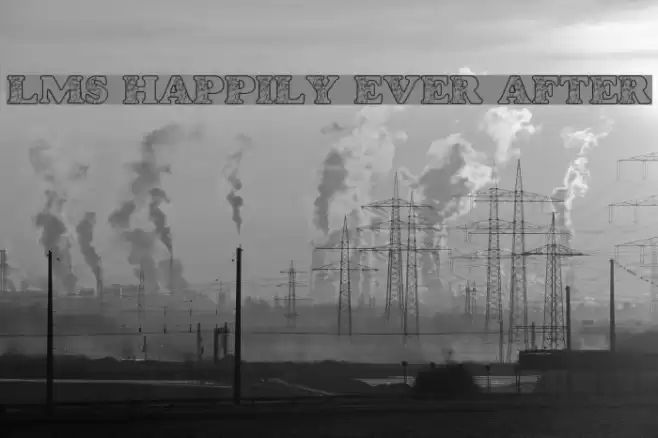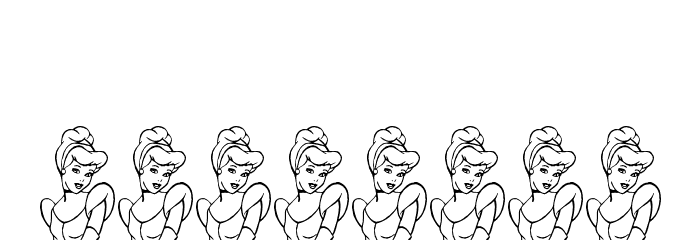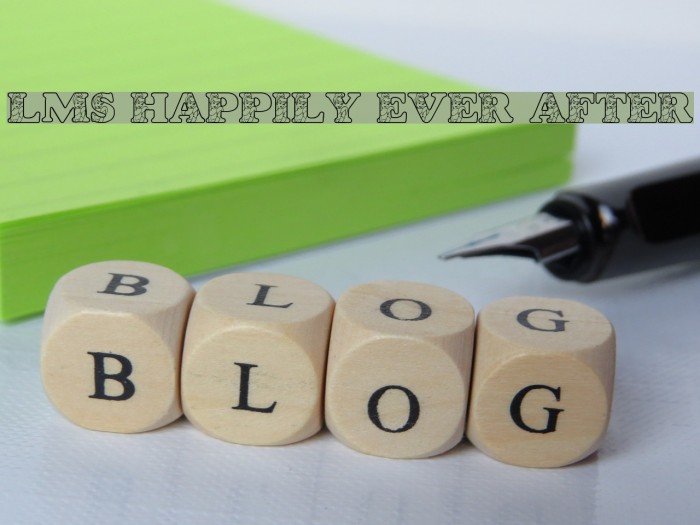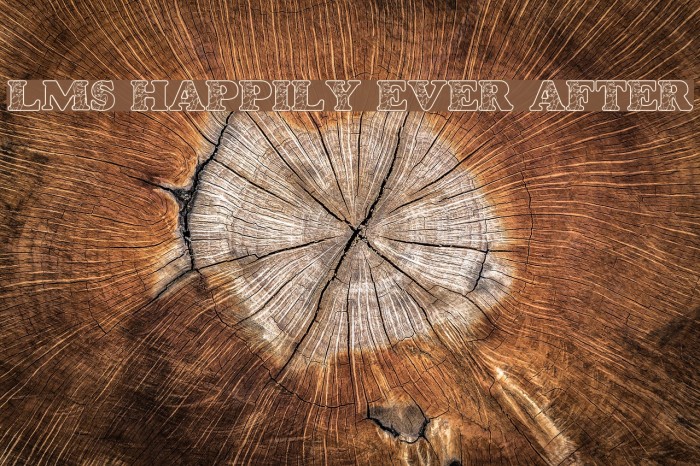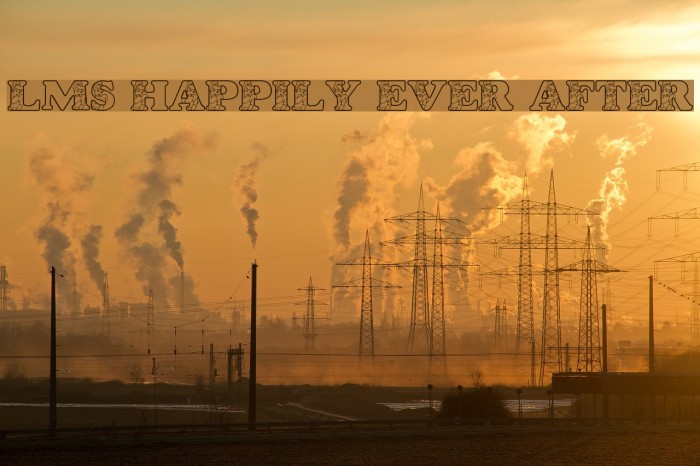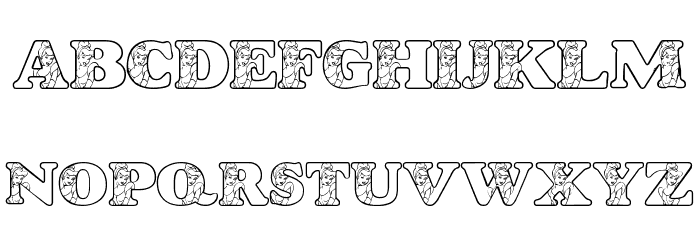
LMS Happily Ever After Font
LMS Happily Ever After Description
This decorative font features uppercase letters with intricate floral patterns filling each character. The design is whimsical and fairy-tale inspired, making it ideal for projects that require a touch of enchantment and elegance. The characters are bold and well-defined, with a consistent pattern throughout. The font does not include lowercase letters or numbers, focusing solely on uppercase letters to create a striking visual impact. The floral details add a layer of complexity and beauty, making it suitable for creative and artistic projects.
A decorative, floral-patterned uppercase font perfect for enchanting designs from Uncategorized fonts.
- Proposed Projects: Ideal for wedding invitations, fantasy-themed posters, storybook covers, and decorative signage.